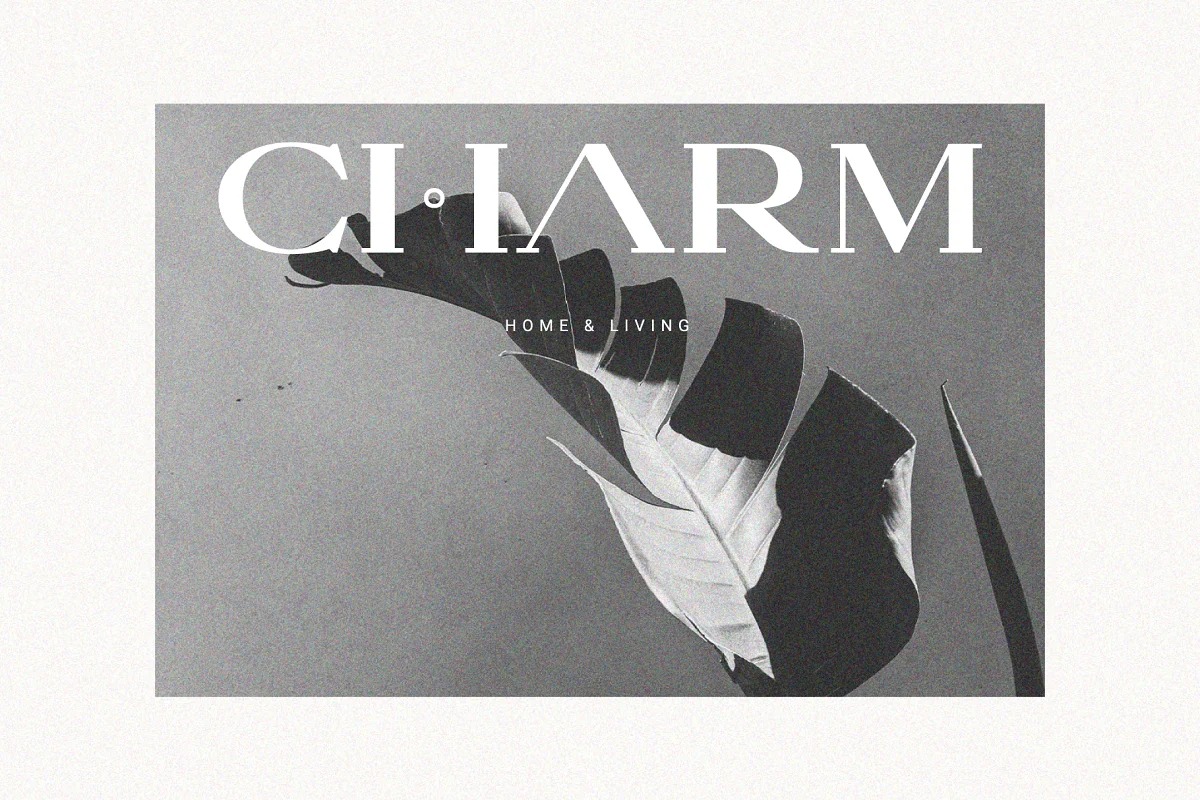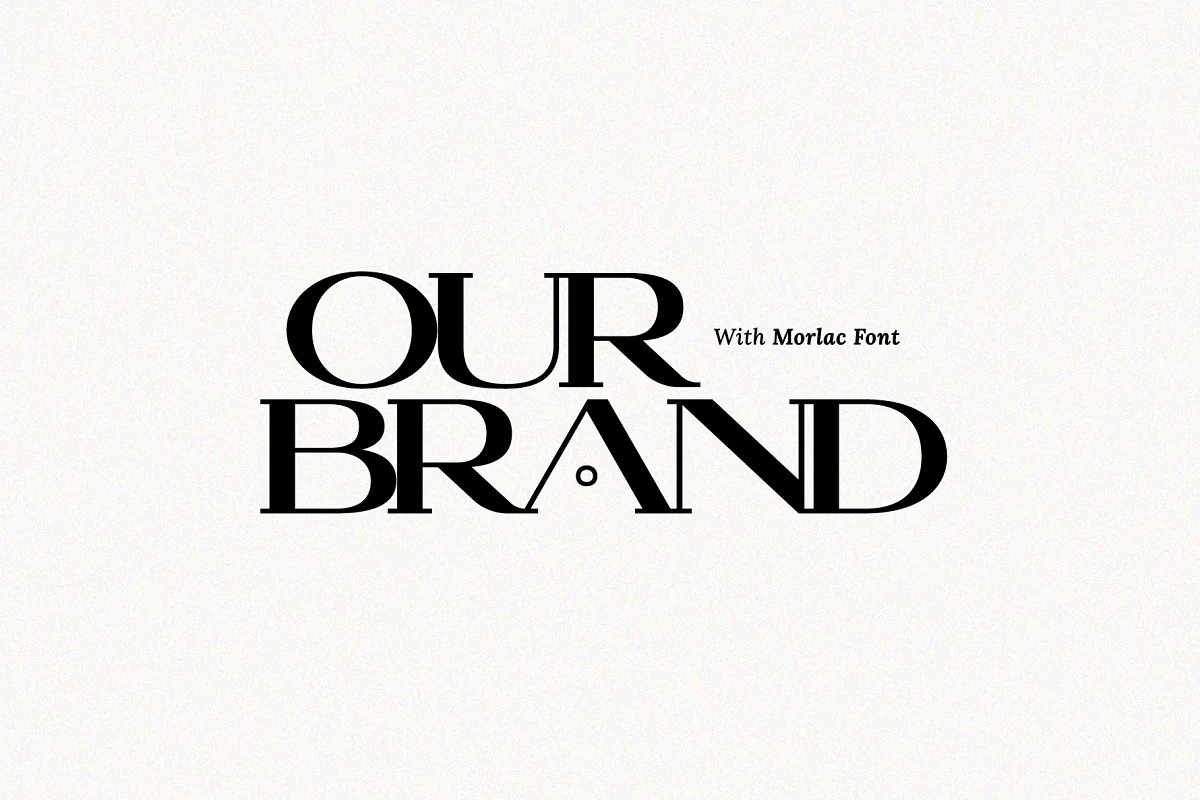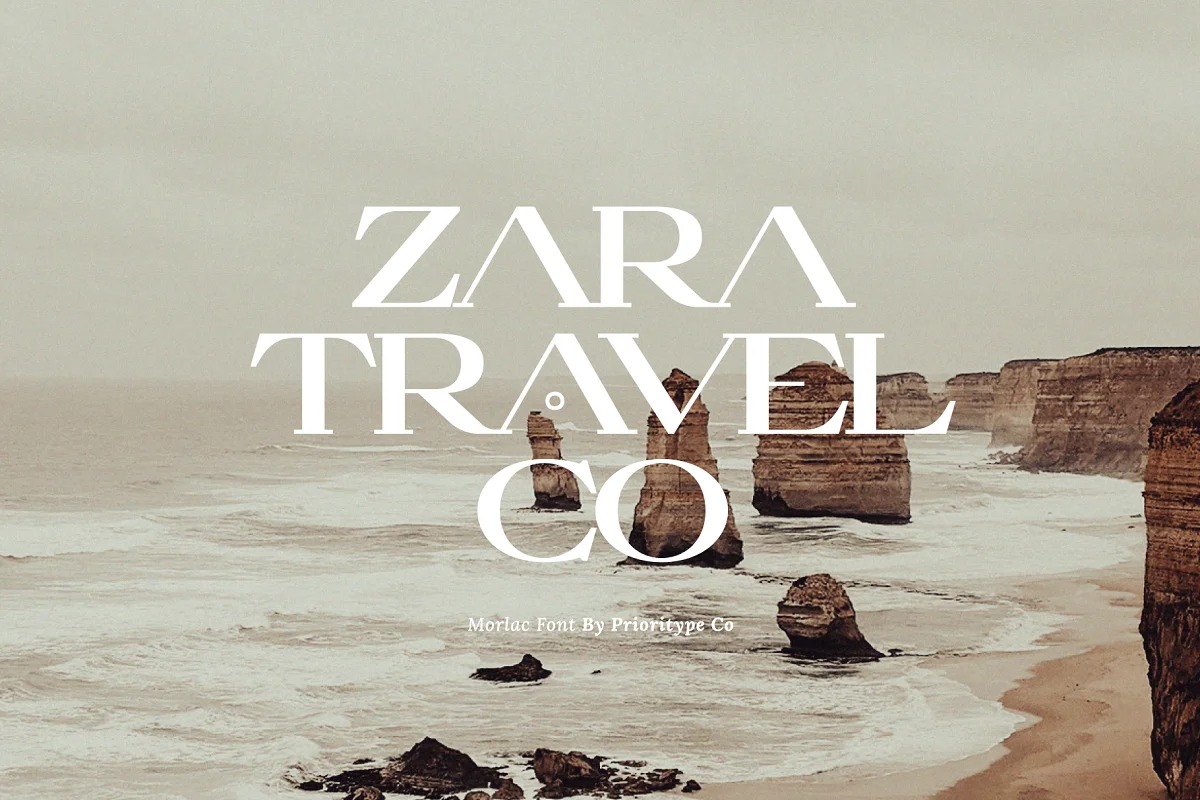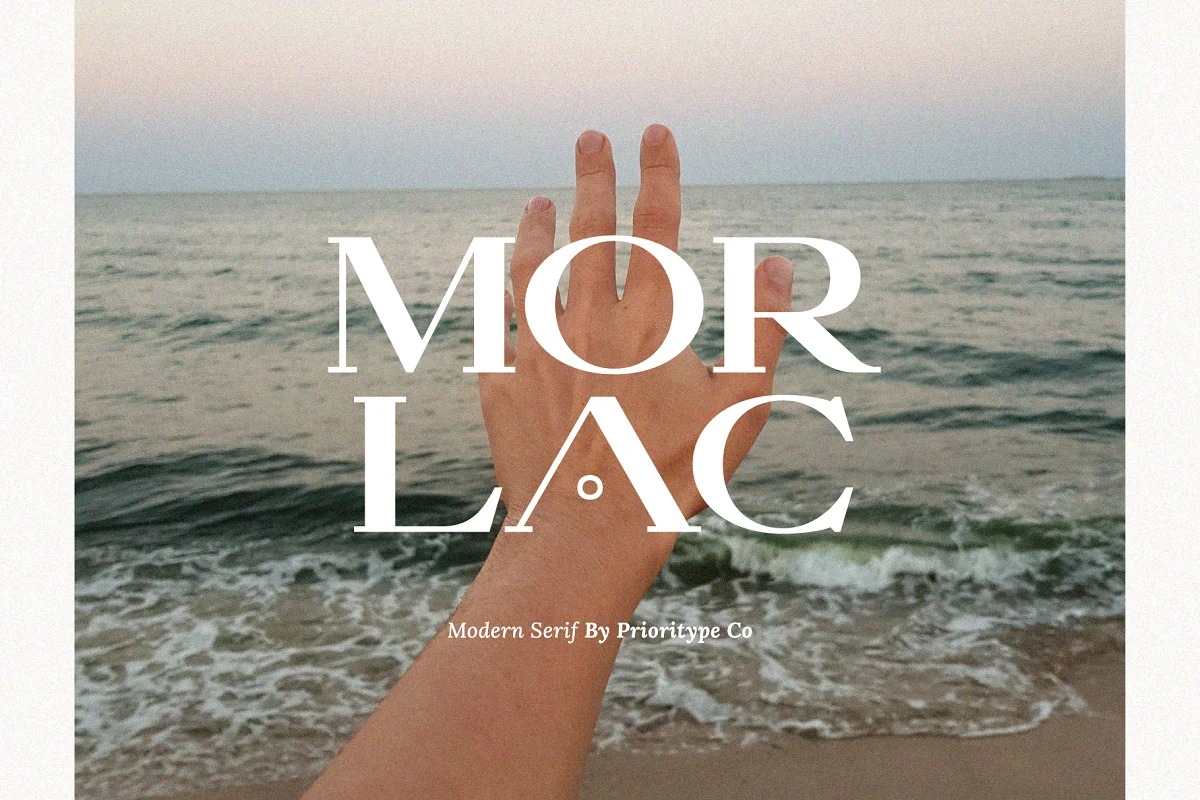
Morlac Serif Font is a classic serif fonts inspired by modern and ligature characters. Made from font designer named Prioritype Co. This is an all caps font. But there are some differences in certain letters such as A, E, F, H and Q. It is suitable for branding designs, logos, headlines etc.